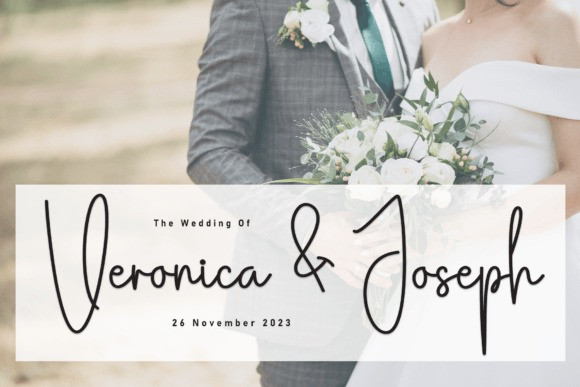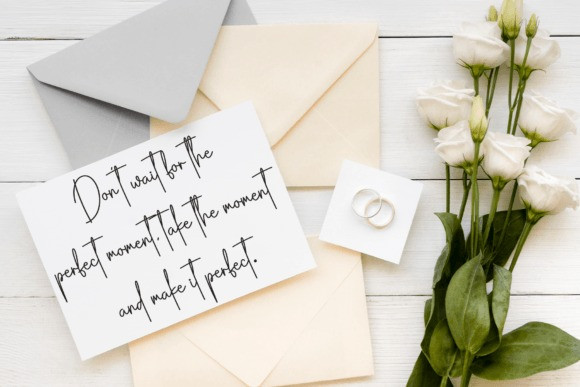
Santa Christmas Font
Santa Christmas Font, a heartwarming handwritten font that captures the festive spirit with its playful strokes and holiday charm. Perfect for adding a touch of joy to your Christmas cards, festive invitations, or any seasonal project, Santa Christmas brings the magic of the holidays to your typography. Embrace the warmth and whimsy of this delightful font as you spread the joy of the season in your designs.